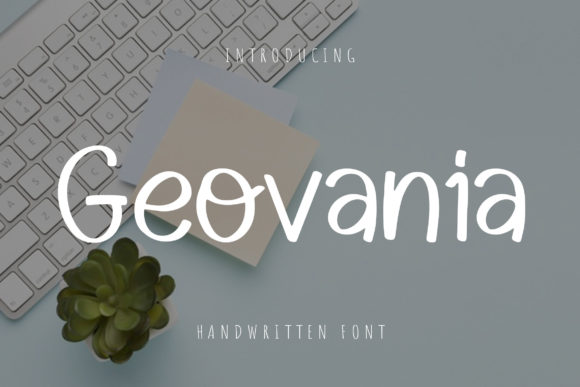
Unleash your imagination with Geovania, the font of fashion, flair, and free-spirited expression. Inspired by the vibrant world of fashion design, Geovania is a handwritten font that dances with playful curves and a touch of whimsy. This striking script font exudes a cool, friendly vibe, adding a personal charm to your designs.
With Geovania, you'll find a font that's versatile and adaptable, effortlessly complementing a wide range of creative projects. Whether you're crafting trendy fashion catalogs, designing eye-catching social media posts, or expressing your unique style in personal branding, Geovania is your go-to companion.
Its natural and organic flow lends a sense of authenticity and approachability to your designs, helping you connect with your audience on a deeper level. Let Geovania's unique character elevate your fashion-forward creations and leave a lasting impression.
So, embrace the boundless creativity of Geovania and see your designs come alive with personality, grace, and a touch of magic. Download Geovania today and embark on a journey of self-expression and creative liberation. Let your imagination soar and let Geovania guide you towards remarkable design achievements.